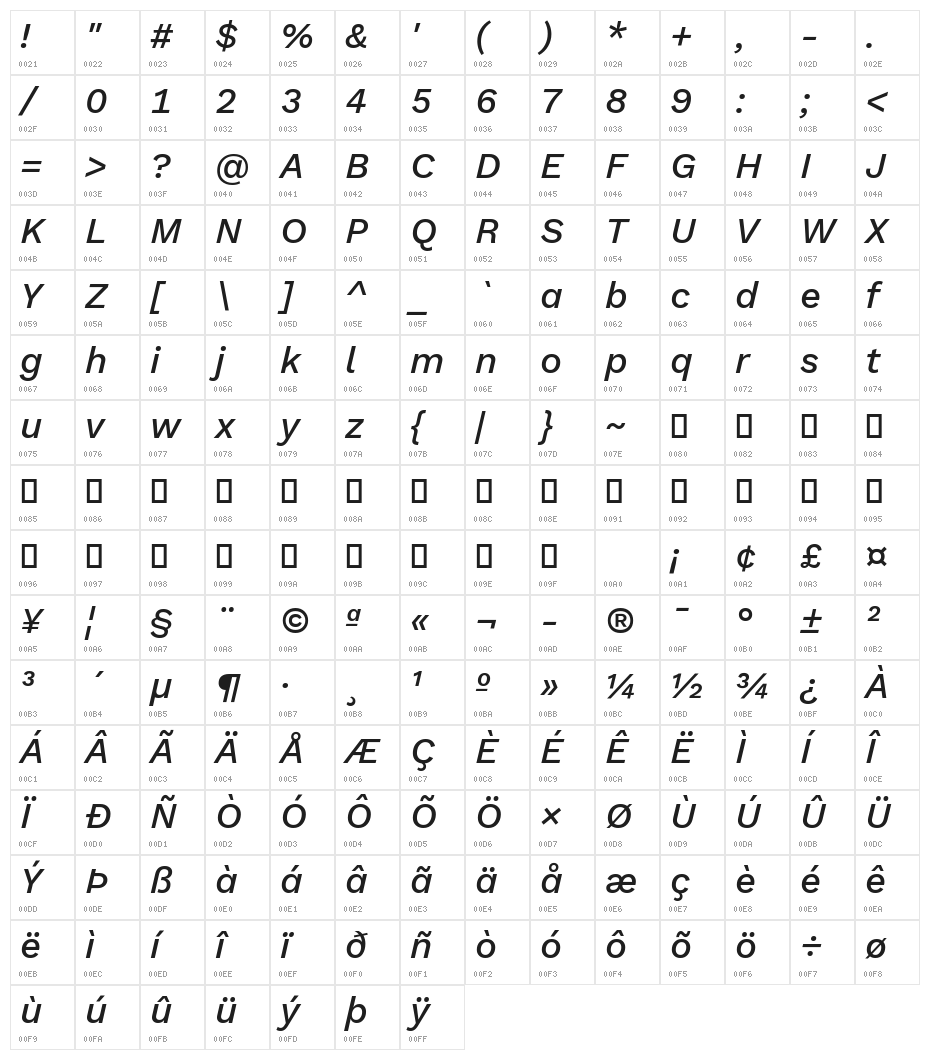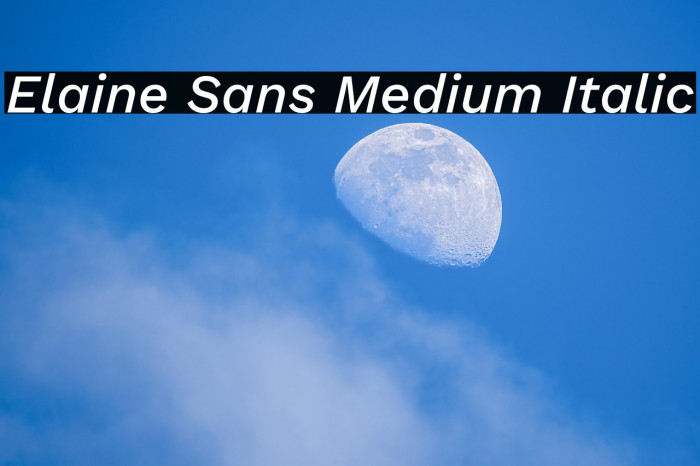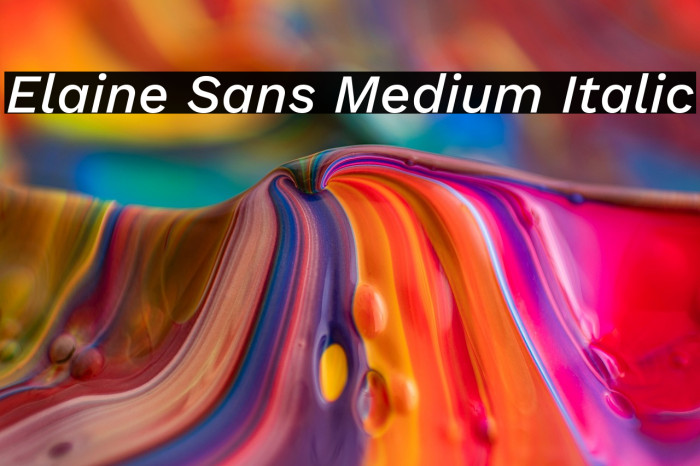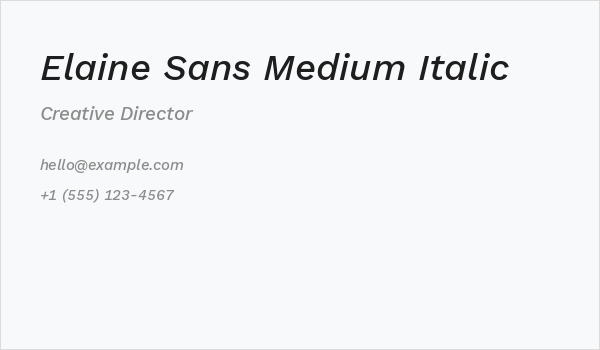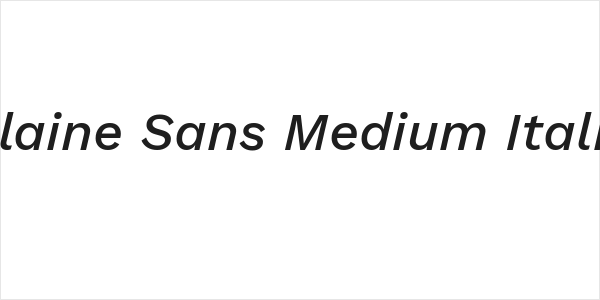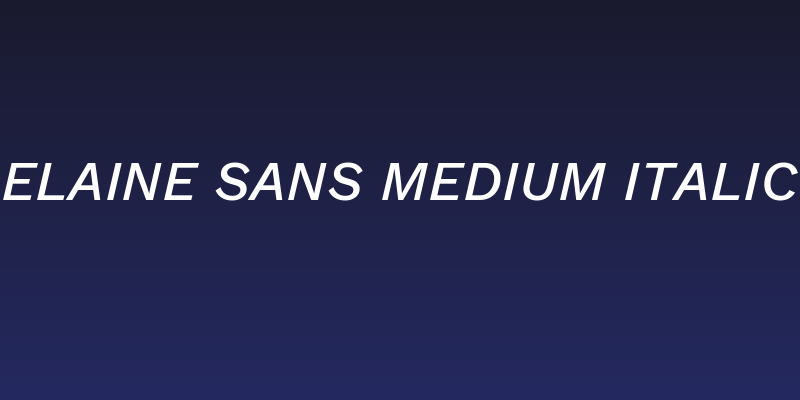
Elaine Sans Medium Italic Font
Elaine Sans Medium Italic Description
This font features a clean and modern sans-serif style with a medium weight and italicized form. The characters are slightly slanted, giving a dynamic and forward-moving appearance. The strokes are consistent in thickness, providing a uniform look across all characters. The design is minimalistic, with smooth curves and straight lines that enhance readability. The spacing between characters is normal, ensuring clarity and legibility in both small and large sizes. This font is versatile, suitable for a variety of design projects that require a contemporary and professional aesthetic.